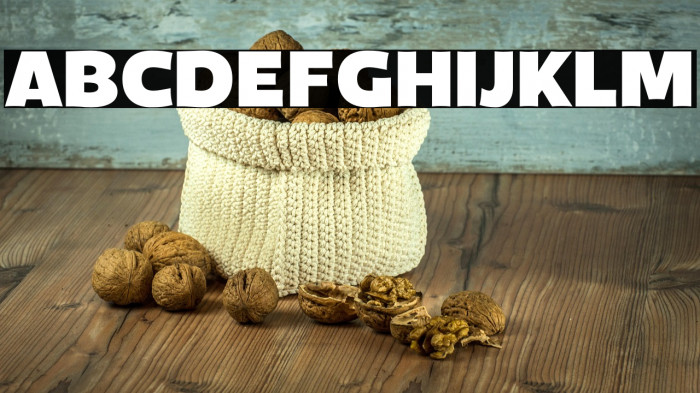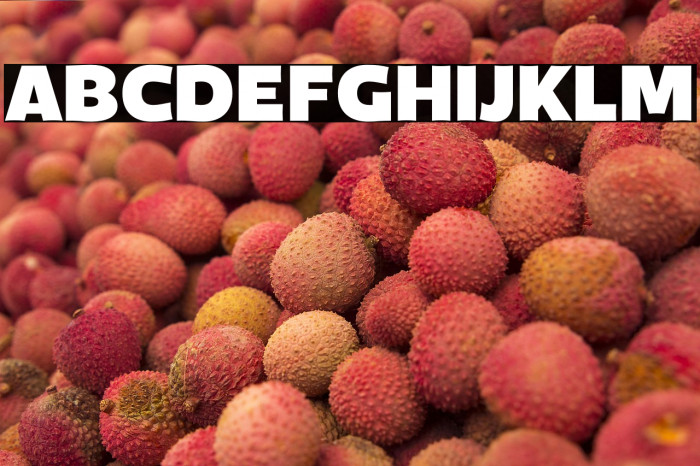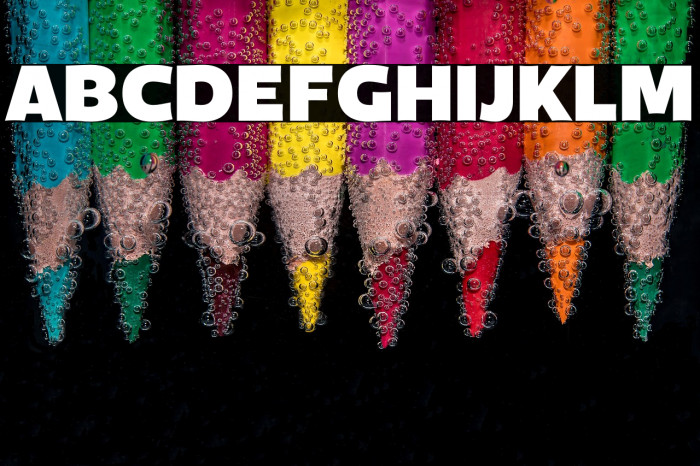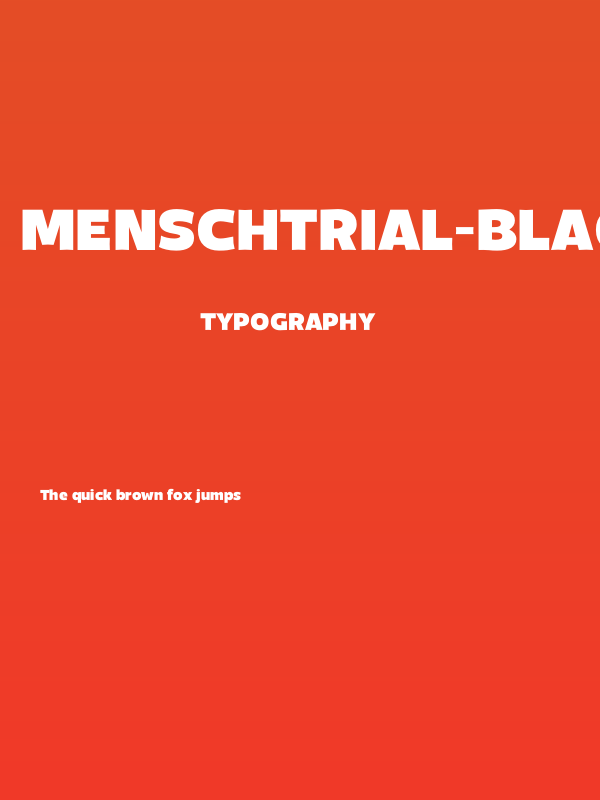
MenschTrial-Black Font
MenschTrial-Black Description
This font features a bold and robust design, characterized by its thick, uniform strokes and strong presence. The uppercase and lowercase letters maintain a consistent weight, giving the typeface a cohesive and powerful look. The numbers and special characters are equally bold, ensuring readability and impact across various uses. The font's geometric shapes and clean lines contribute to its modern and assertive style, making it suitable for attention-grabbing headlines and branding materials. Its simplicity and clarity make it versatile for both digital and print media, while the boldness ensures it stands out in any context.
| Proposed Projects | Ideal for branding, headlines, posters, and advertising campaigns. |